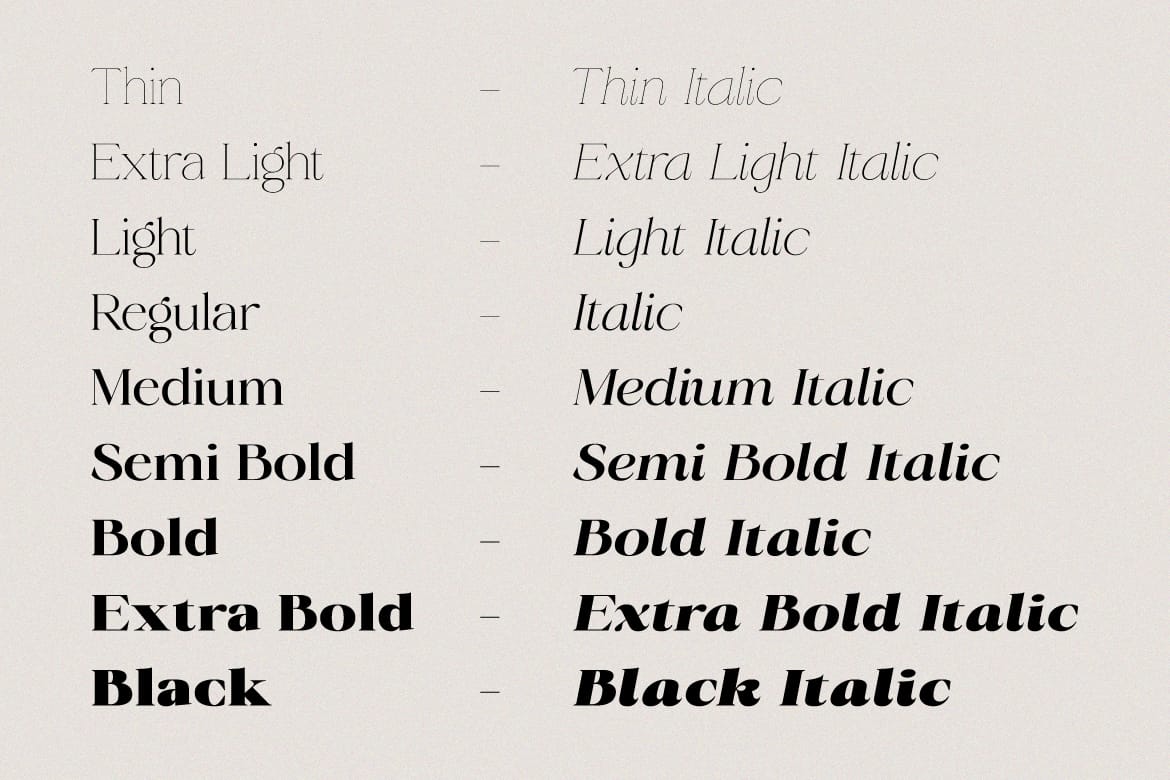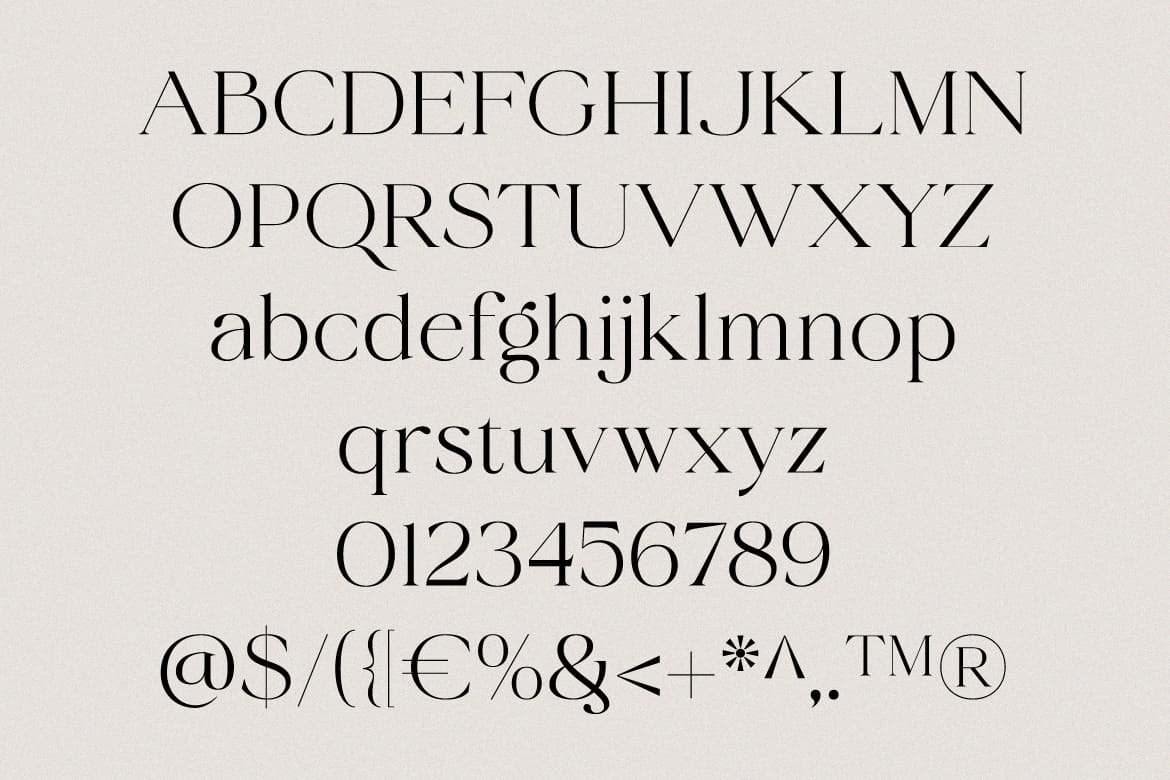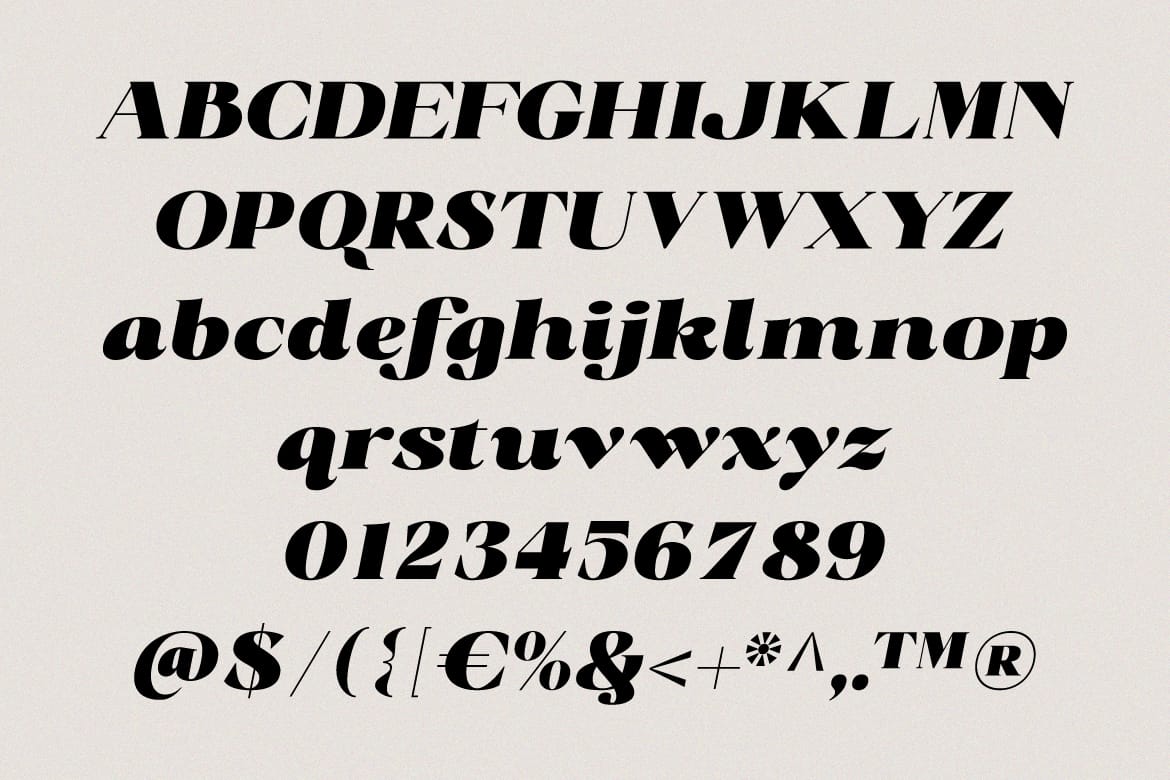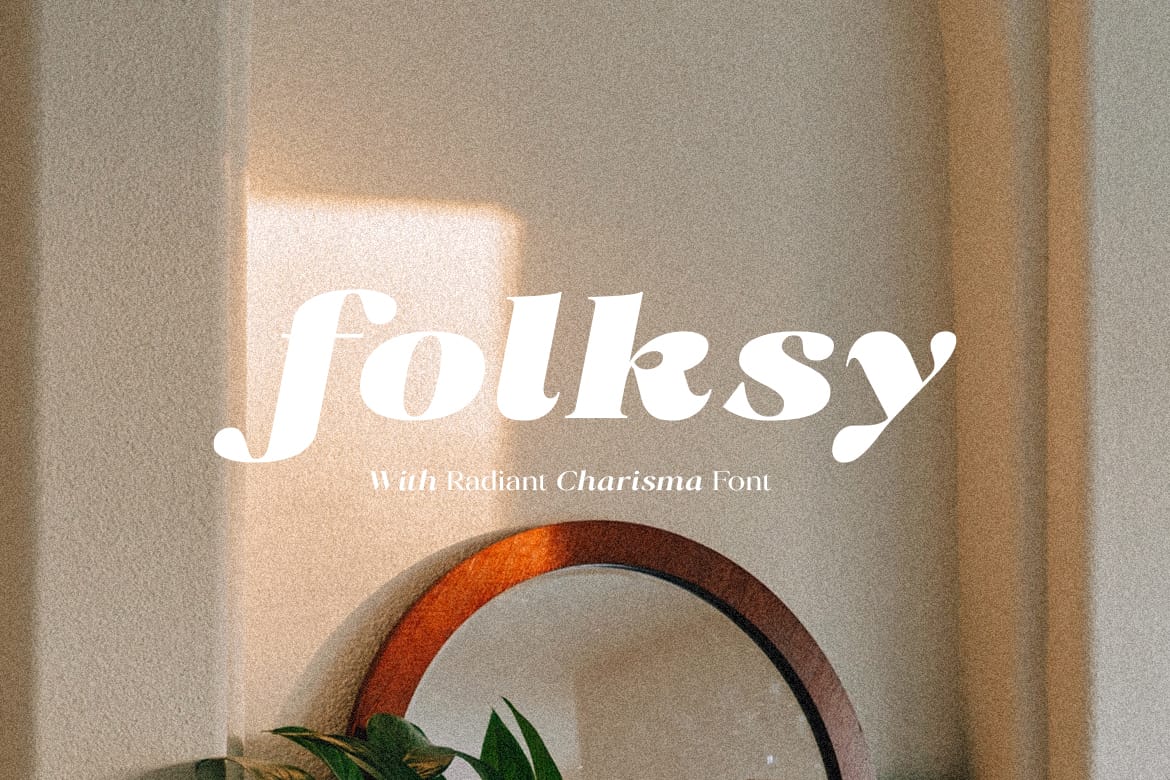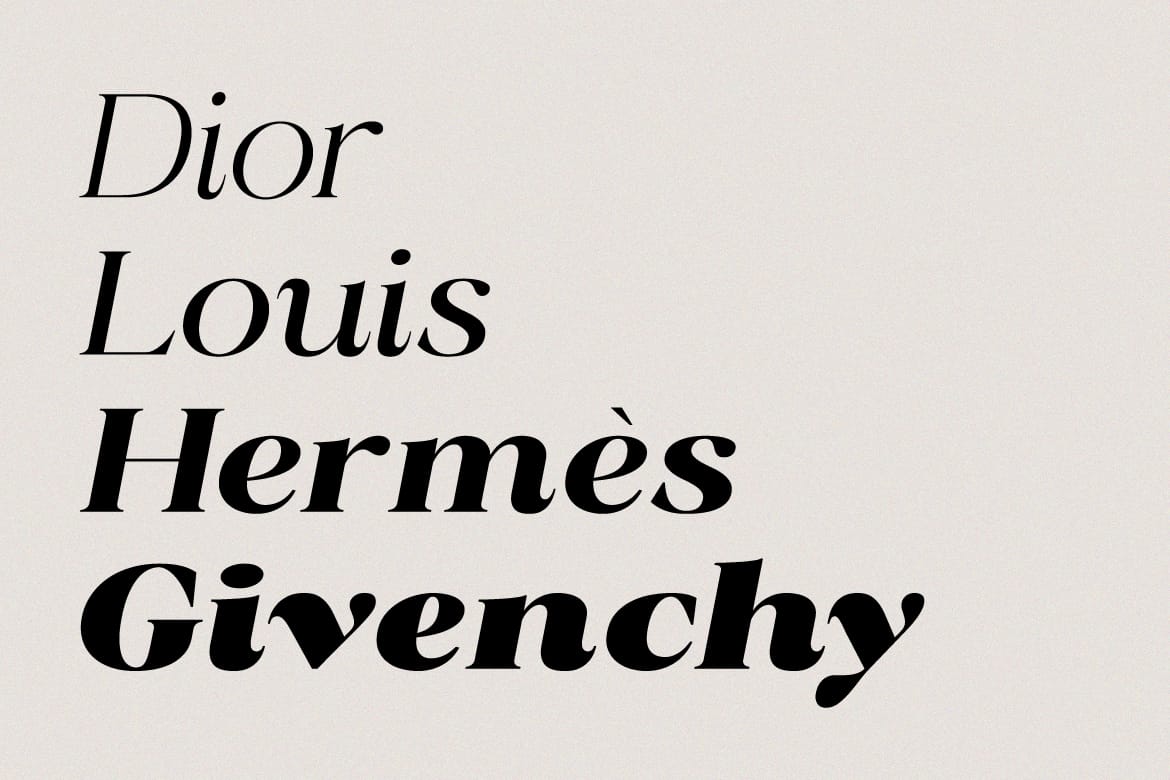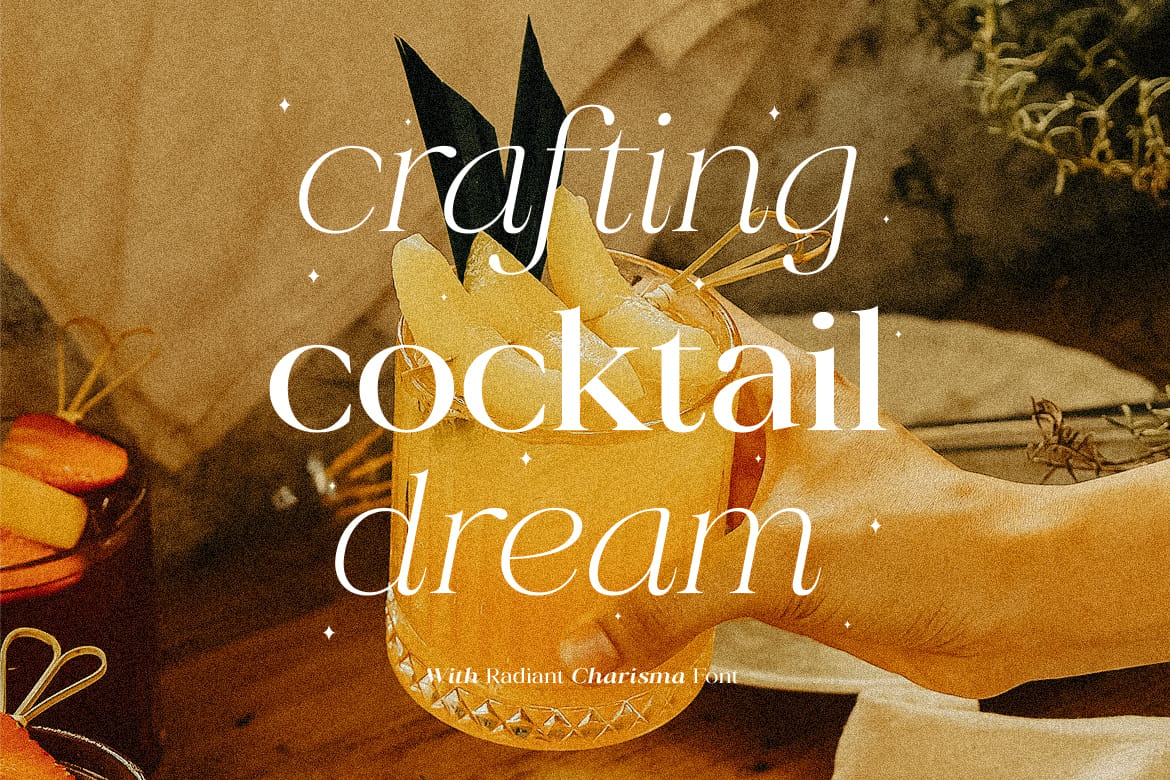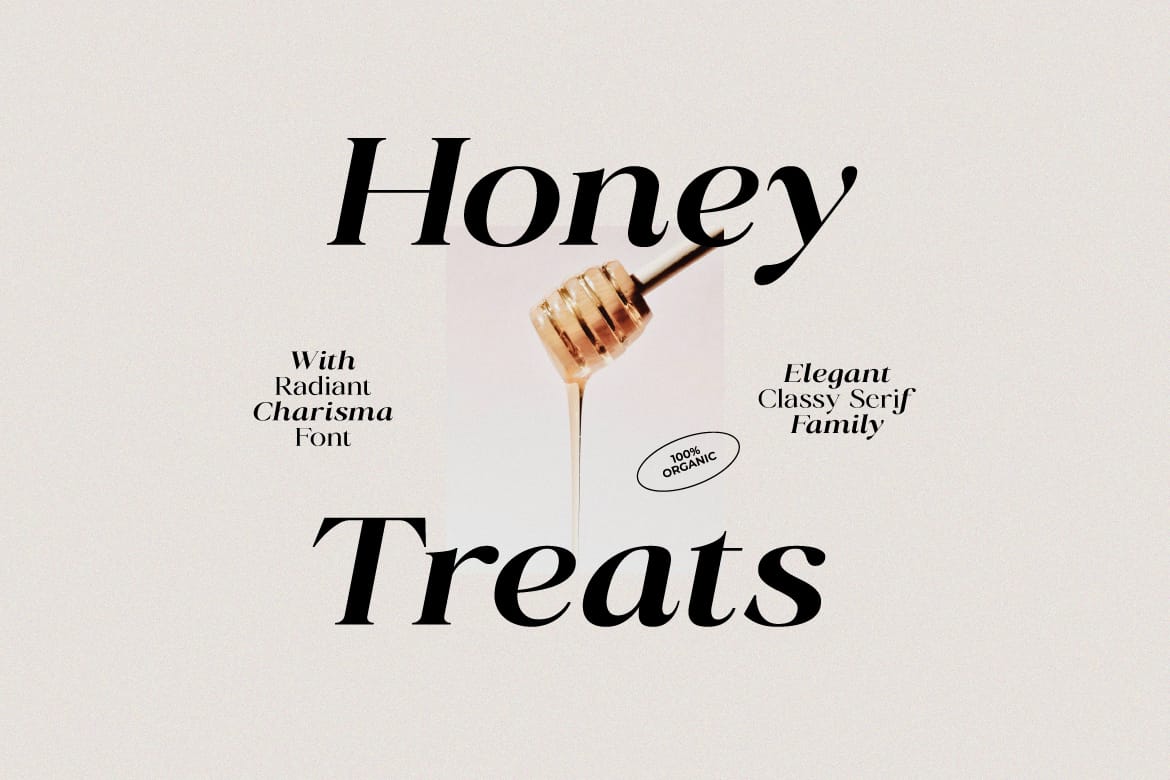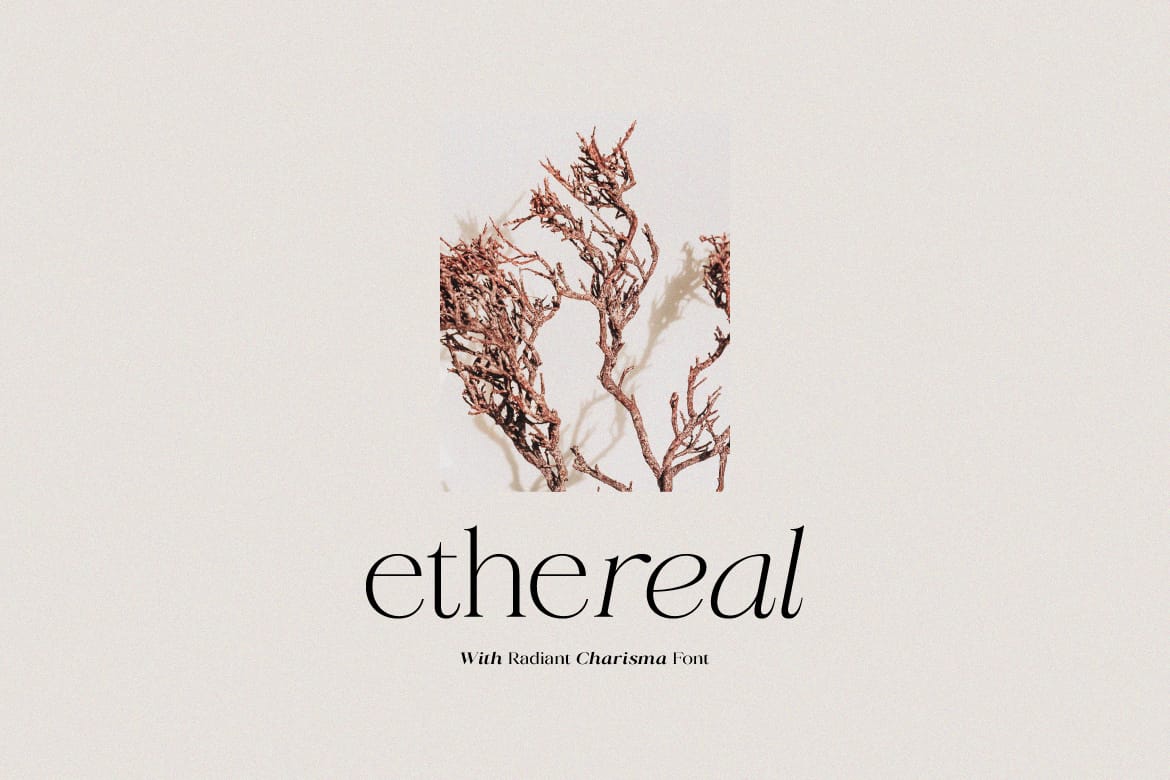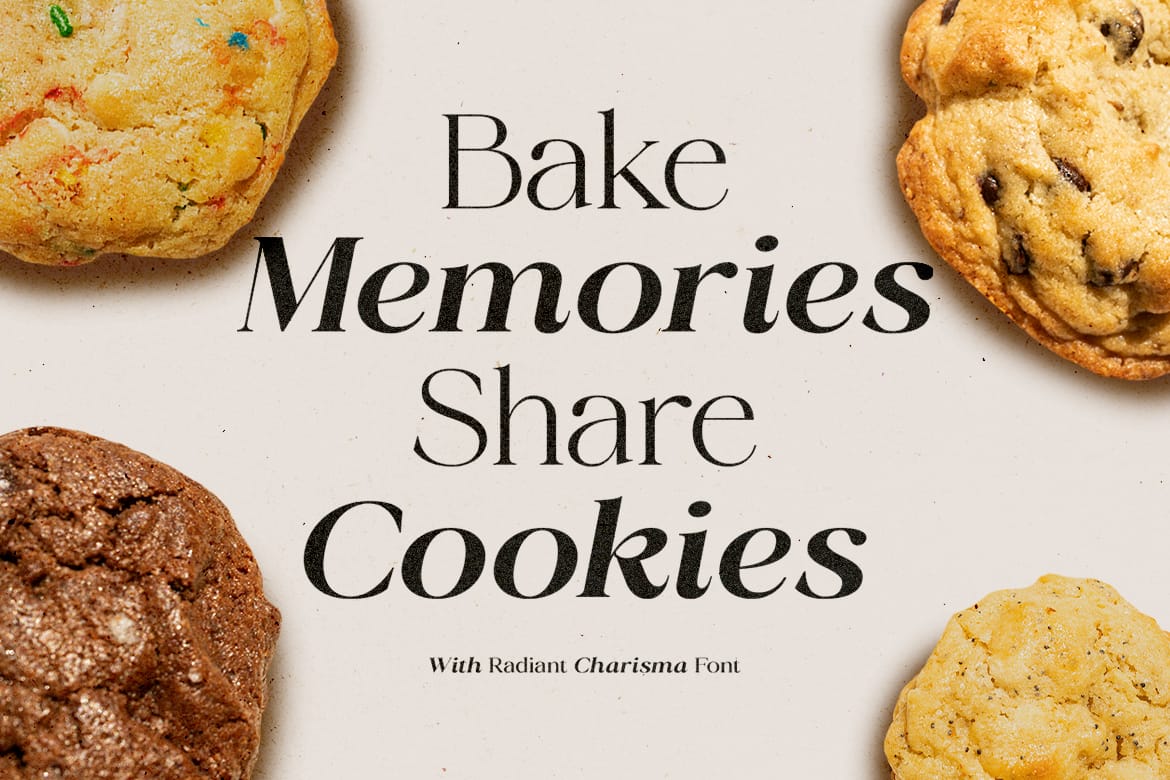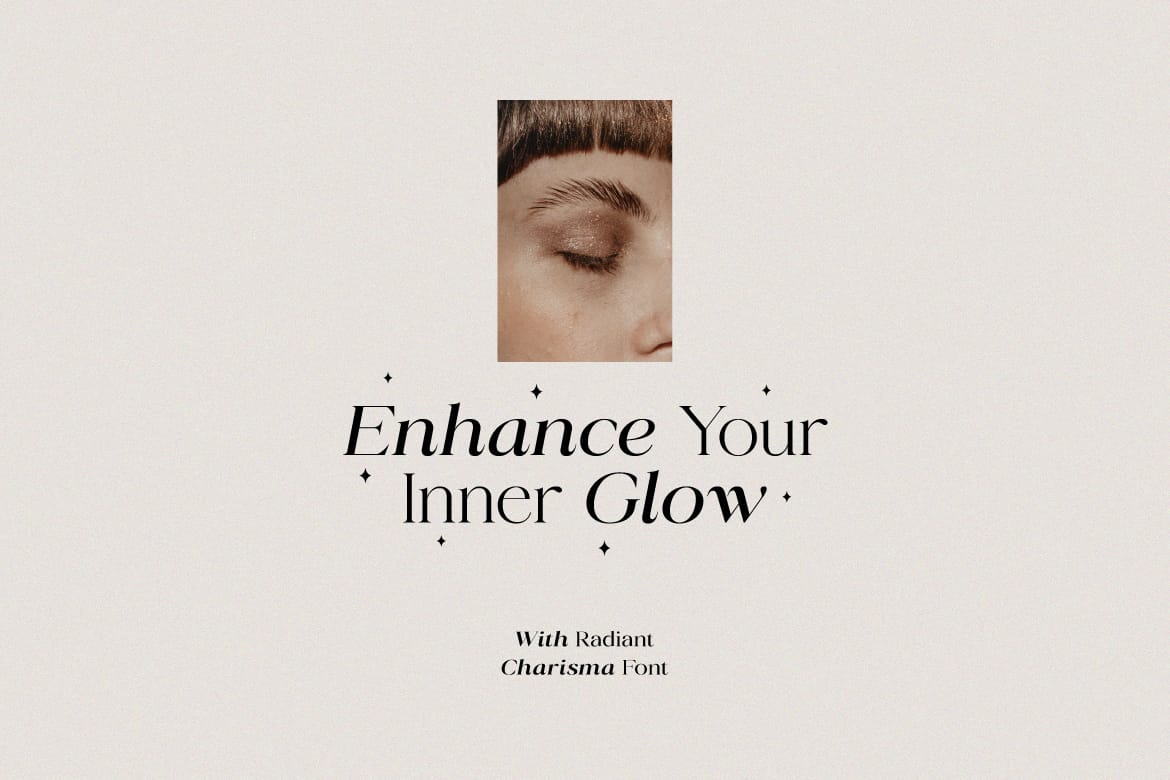
Radiant Charisma - Serif Family
Radiant Charisma is an elegant and classy serif font. With 18 regular weights & matching italics. There are also static + variable files available. Suitable for branding, logo, title, poster and more design needs. Features: Uppercase, Lowercase, Numeral, Punctuation & Multilingual. Obtained file format: Otf, Ttf, Woff & Variable.
• 18 weights with matching italics
• Elegant serif for branding and logos